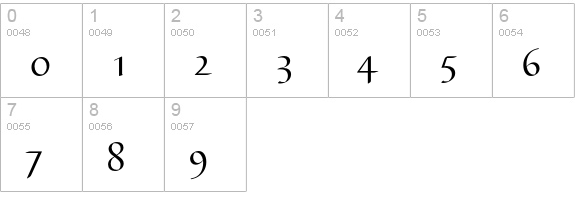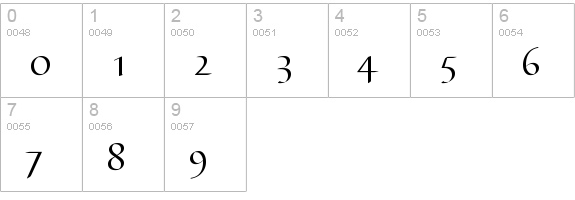
Barbedor SC T Regular is the standard, neutral variant in the Barbedor typeface family \xE2\x80\x94 well suited to general body text, paragraphs, and standard typographic work.
Barbedor SC T Regular is a stunning and versatile serif font that exudes elegance and sophistication. Its timeless design features delicate serifs and a balanced weight distribution, making it perfect for a wide range of design projects. Whether you are creating invitations, branding materials, or editorial layouts, Barbedor SC T Regular will bring a touch of refinement to your work. This font is available for free download at FontsMarket.com, making it accessible to designers and creatives looking to elevate their projects with a touch of classic charm. With its clean lines and impeccable readability, Barbedor SC T Regular is sure to make a lasting impression on any audience. Don't miss out on the opportunity to enhance your designs with this beautiful font today!